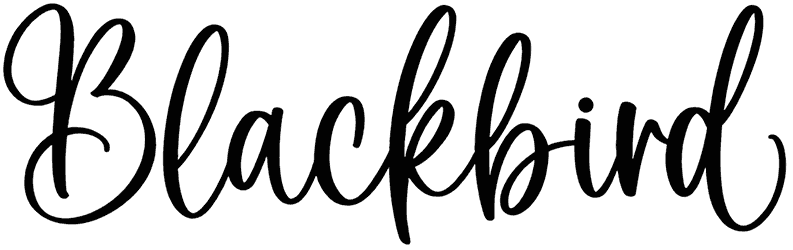
Blackbird Font
Well, this looks like it was written by a happy person! Blackbird font, with curly letters and rushed but elegant elements, has the perfect look for your celebratory designs.
This calligraphy font has a continuous look that makes it more casual, and all of these elements put together will give an upbeat and exciting sense to your reader. You can use Blackbird to write summer flyers and sale posters.